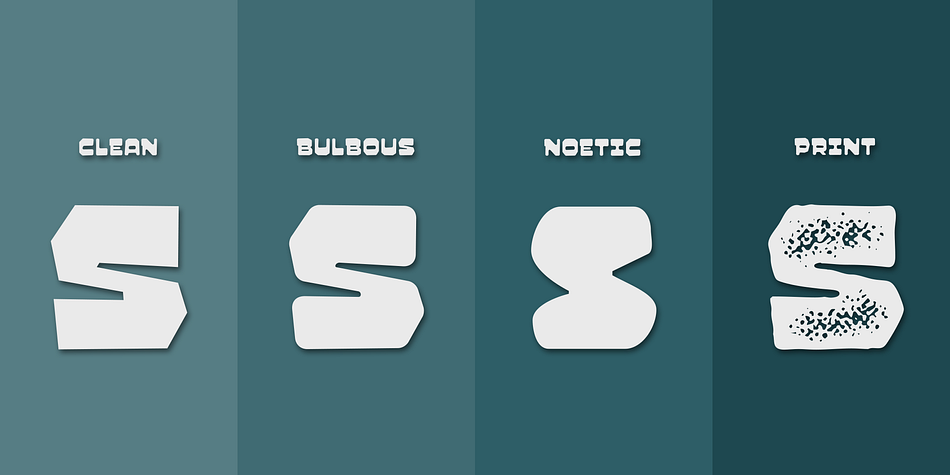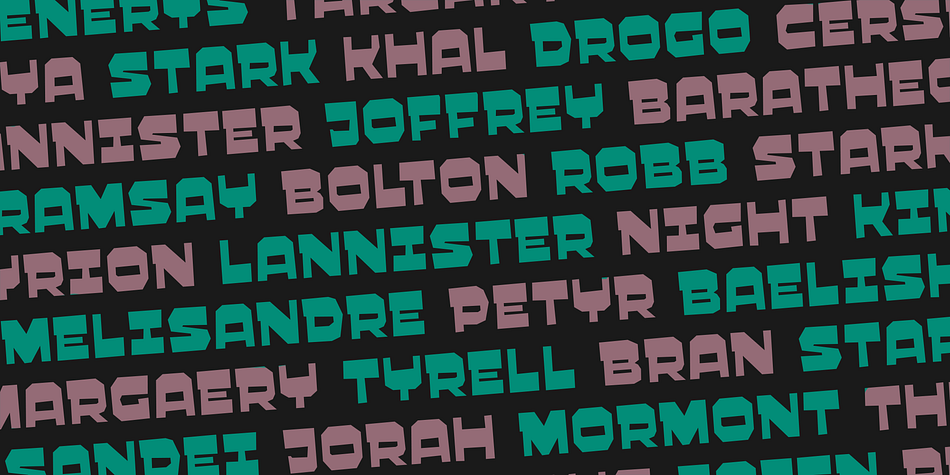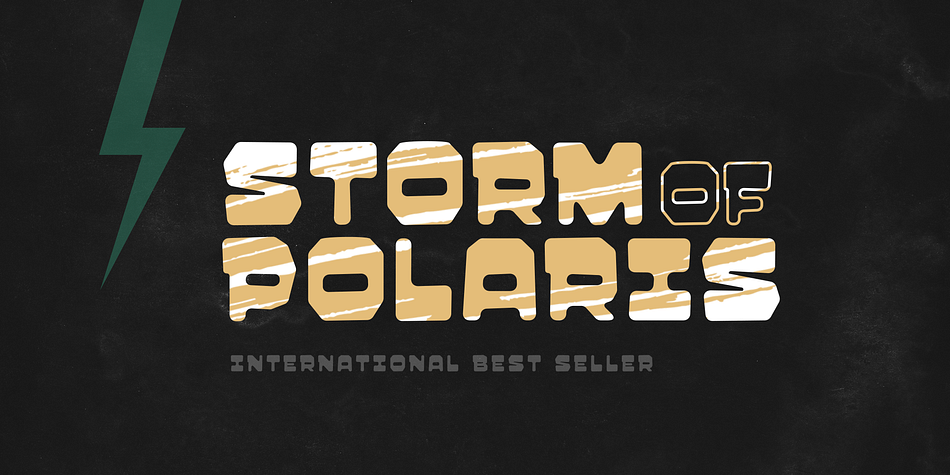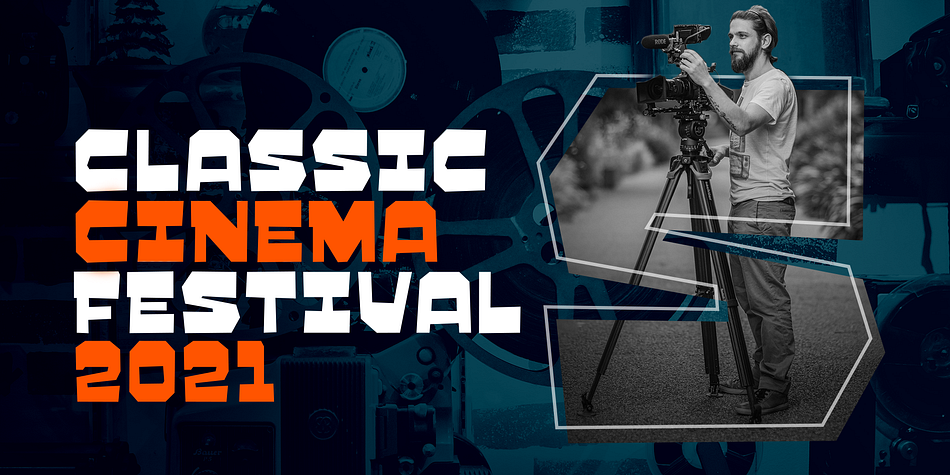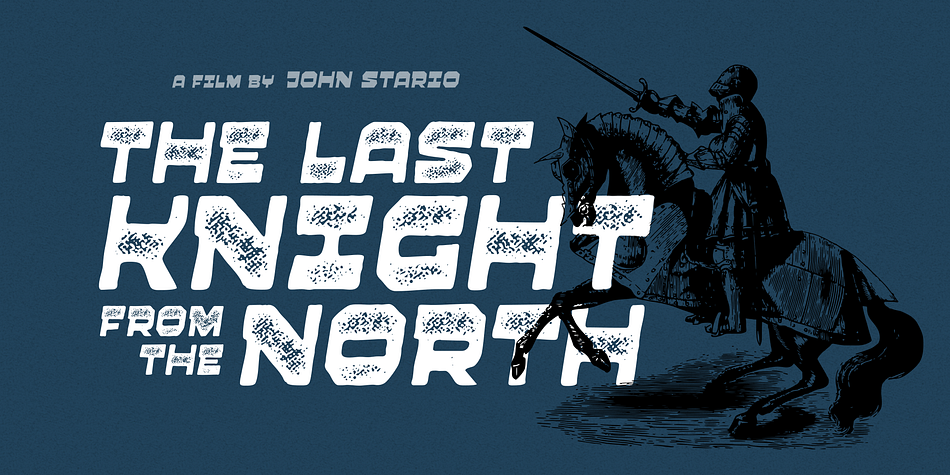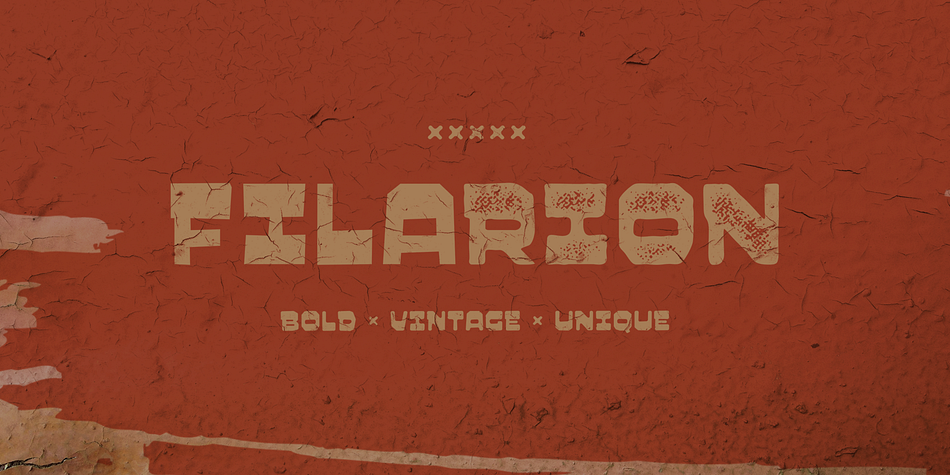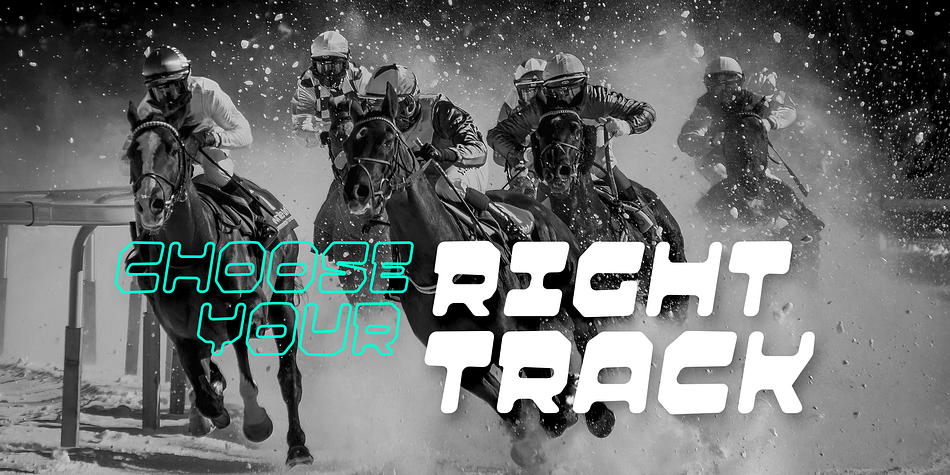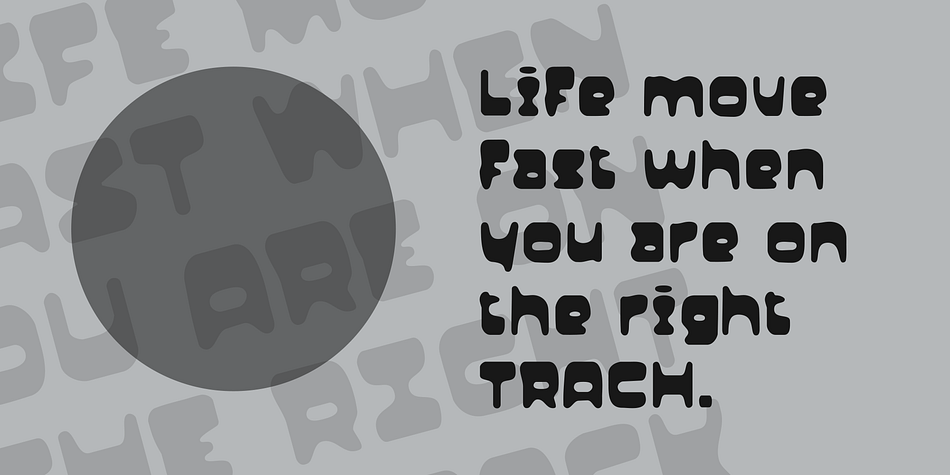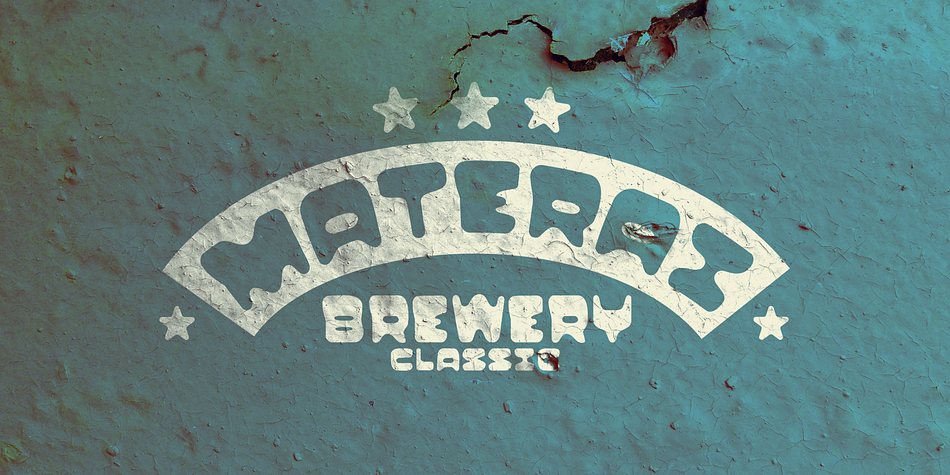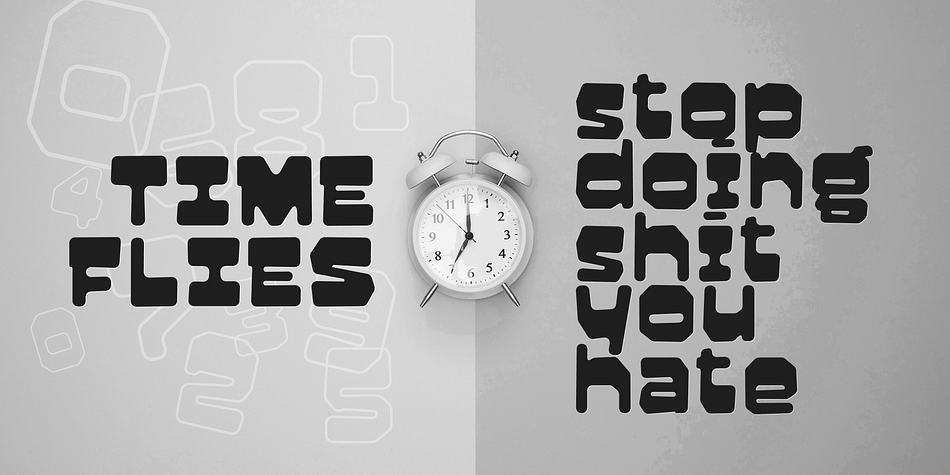
Filarion
Filarion is a display and hand display font family. This typeface has eight styles and was published by Locomotype.
Filarion is inspired by a bit of 60s typography. At first glance it looks contrasting but is executed in a different way. The lines are drawn irregularly so that it looks casual and not stiff.
From a clean basic form (Regular), Filarion was developed into three different variants, namely Bulbous, Noetic and Print. Each of them has an oblique style. So you will get 8 fonts from Filarion family.
This font is suitable for use as a title in broadcast videos, movies or poster designs. It can also be used on quotes and other promotional materials that require extra attention.